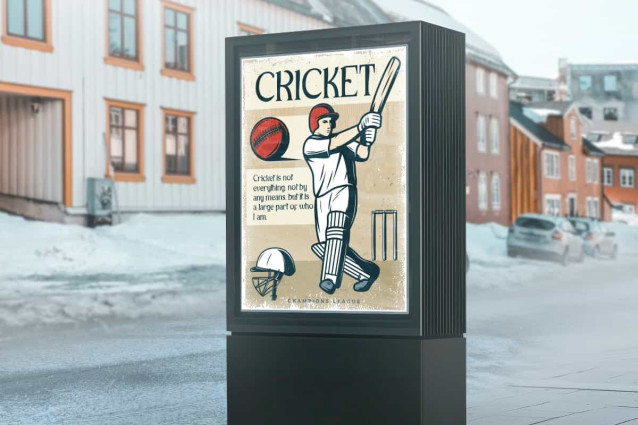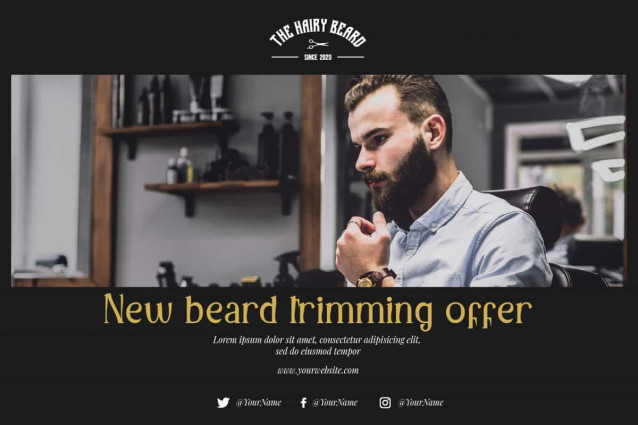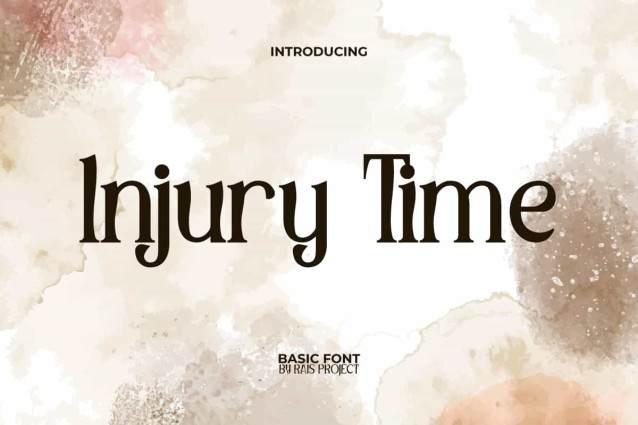
Injury Time Font
Injury Time Font is an aesthetic display font that comes with old sharp edges serif look. This font has a unique character so it can add an attractive aesthetic to your design. It will look good on invitation, stationery, poster, custom design, product packaging, quotes, signage, brand image, advertisement, label, marketing material, website page, and more!
Injury Time Font includes a full set of ALL CAPS for Uppercase and Lowercase Letters, Numerals, and large range of Punctuation. This stylish font will be suitable for various industries, such as fashion, jewelry, cafe, event or wedding organizer, photography, printing, publishing, etc.